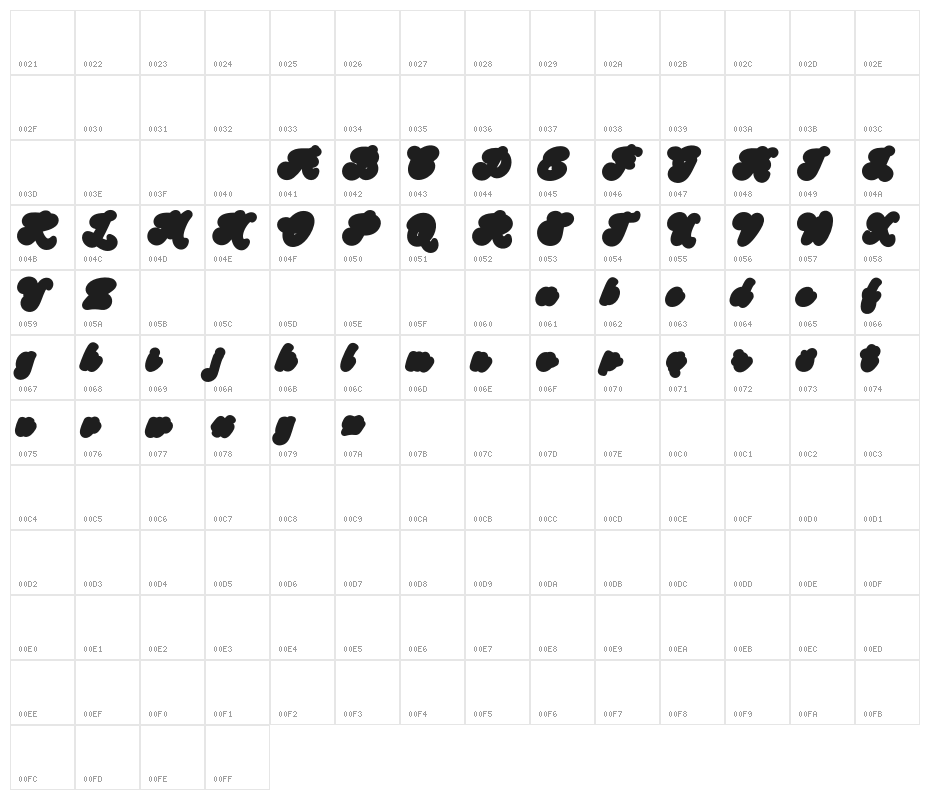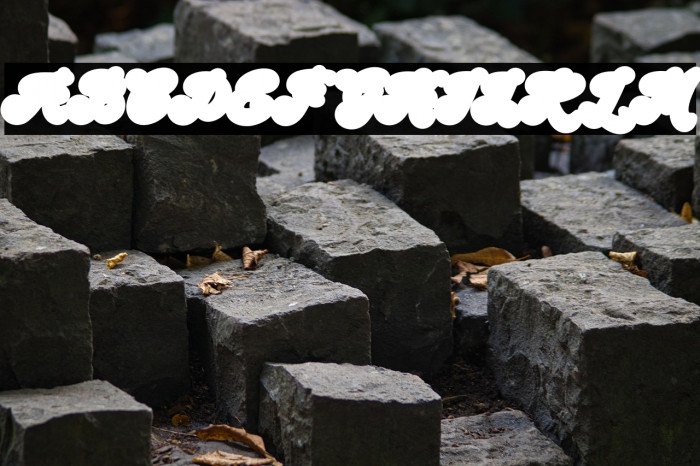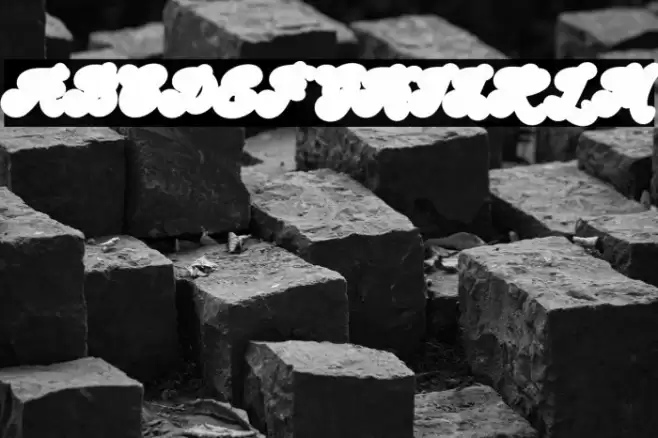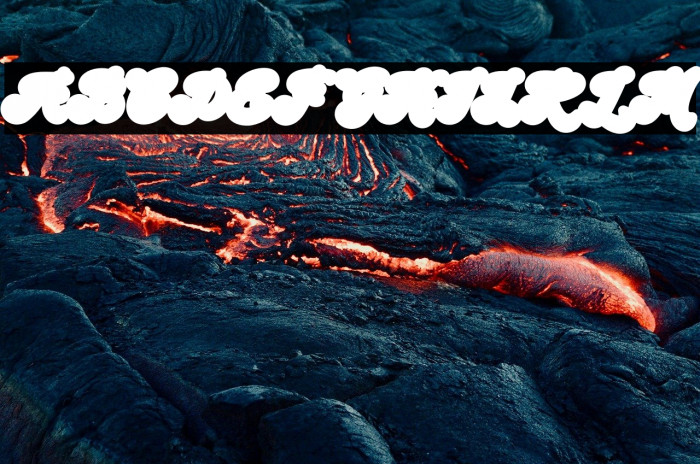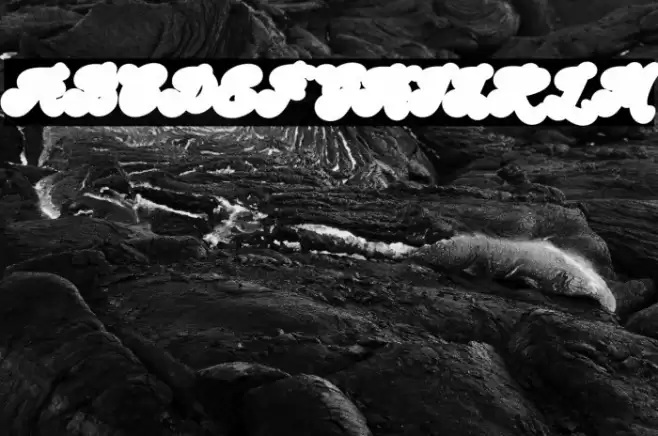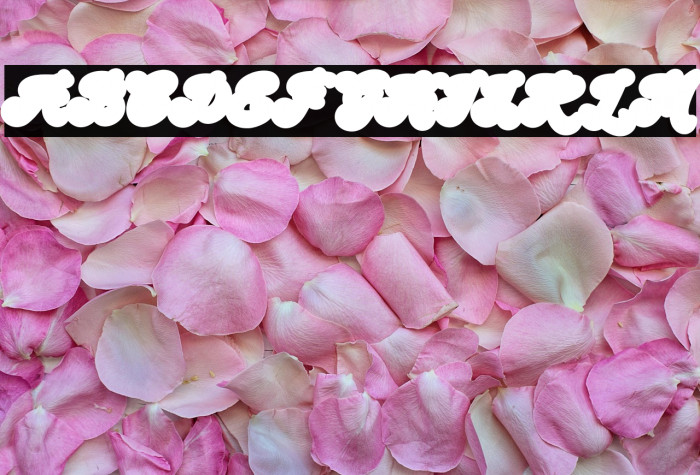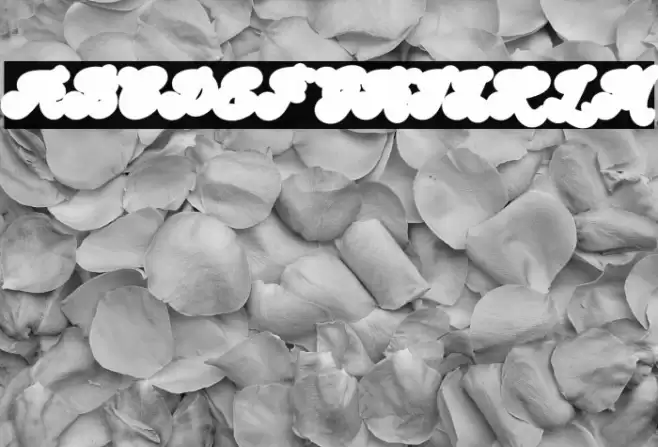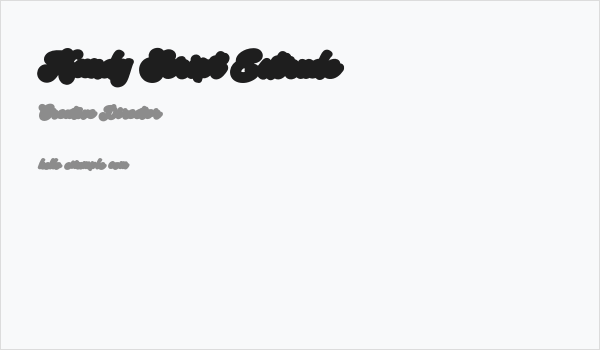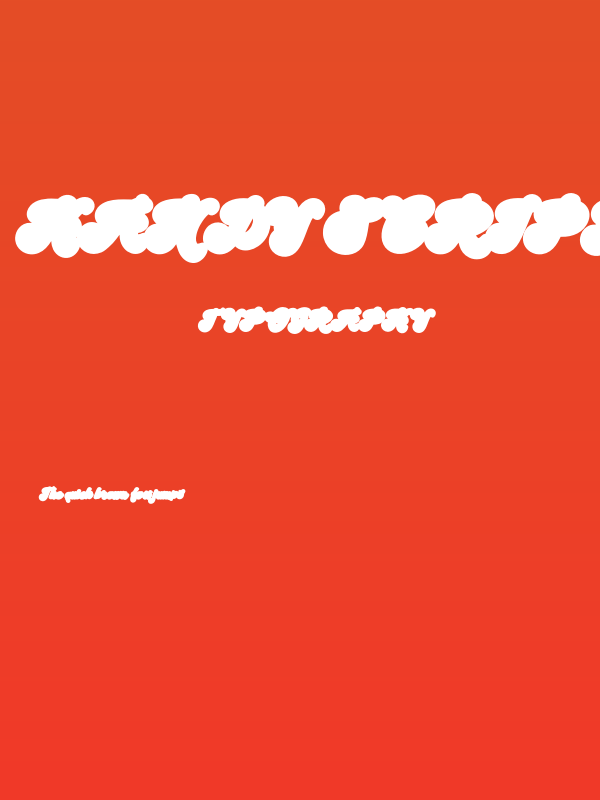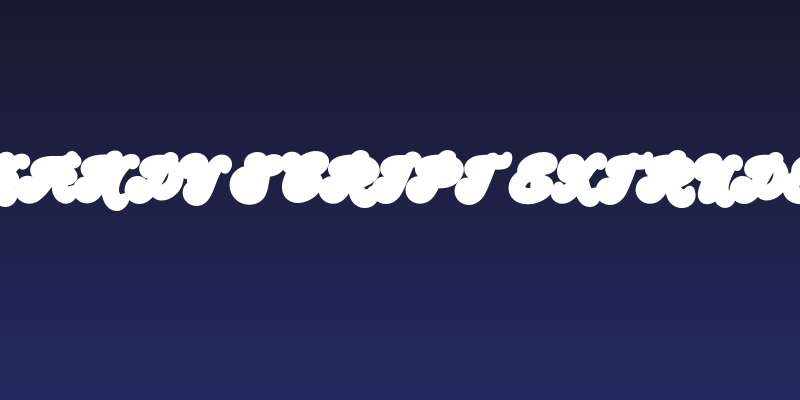
Handy Script Extrude Font
Handy Script Extrude Description
This font features a bold, playful script style with a three-dimensional extruded effect, giving it a unique and eye-catching appearance. The letters are rounded and connected, creating a flowing, cursive look that is both dynamic and engaging. The extruded shadow adds depth and a sense of movement, making it stand out in any design. The font is highly decorative, with a whimsical and fun aesthetic that is perfect for creative projects. Its boldness ensures it captures attention, while the script style maintains a sense of elegance and fluidity.
| Proposed Projects | Ideal for posters, logos, children's book covers, playful branding, and any project needing a fun, dynamic touch. |